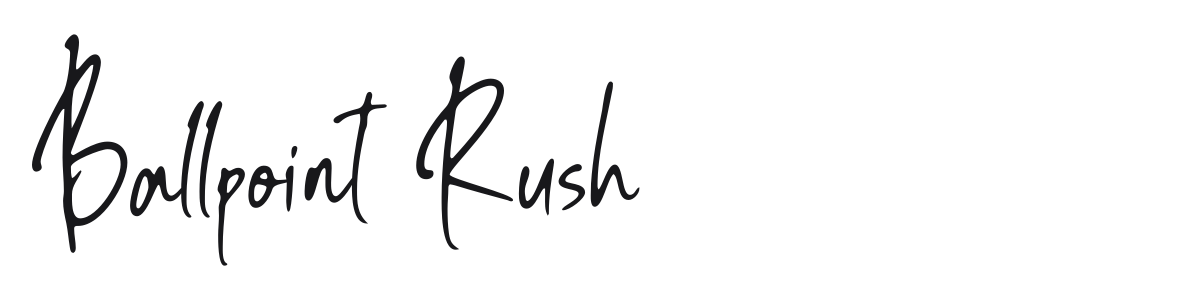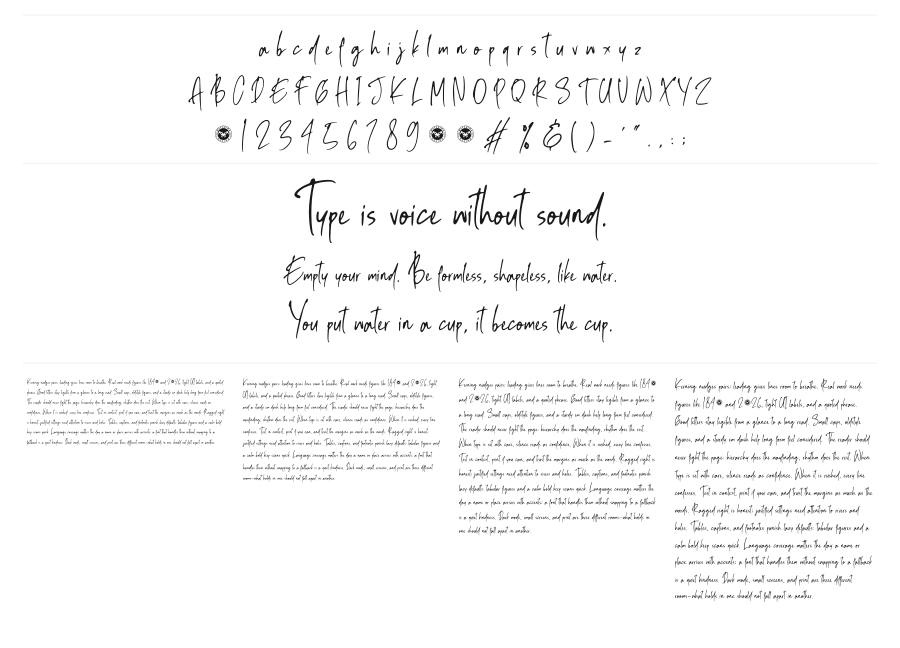
Ballpoint Rush
Ballpoint Rush is a casual handwritten script that mimics the natural flow of a ballpoint pen moving quickly across paper. The slightly irregular connections and thin, consistent strokes give it an authentic, unforced quality that feels personal without being sloppy. Works well for branding, packaging, and any context that needs warmth and a human touch.